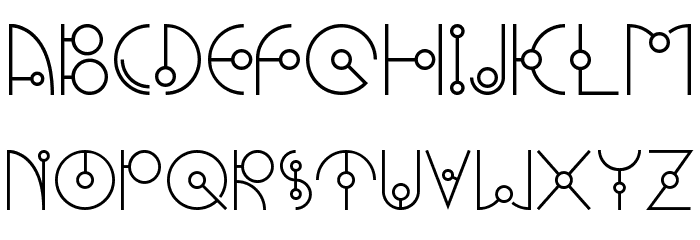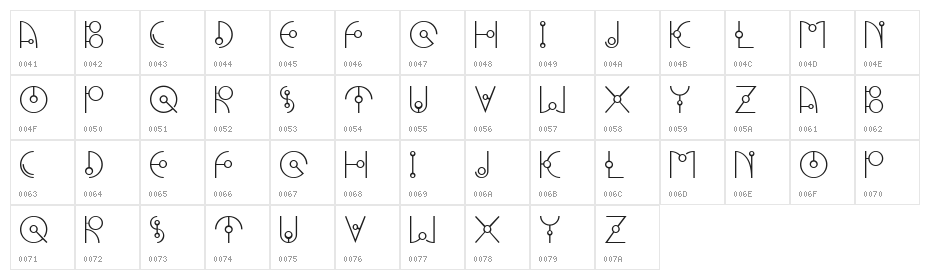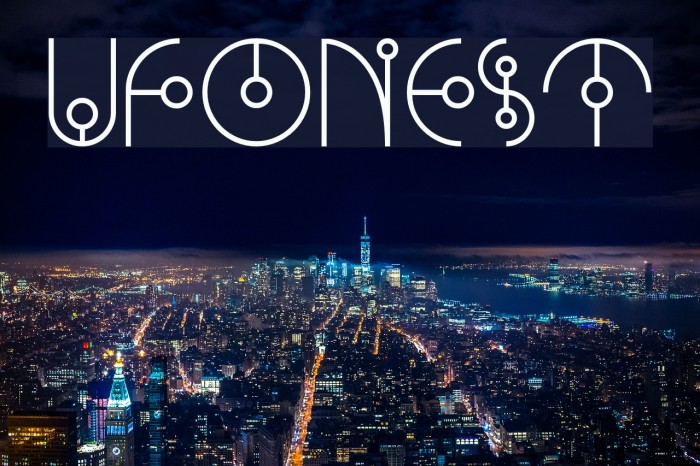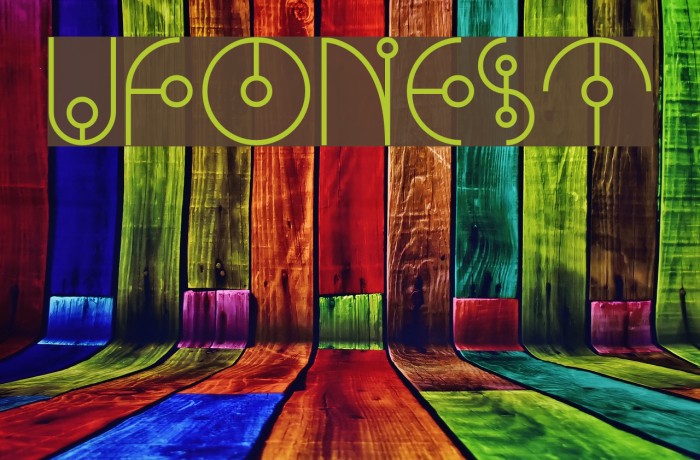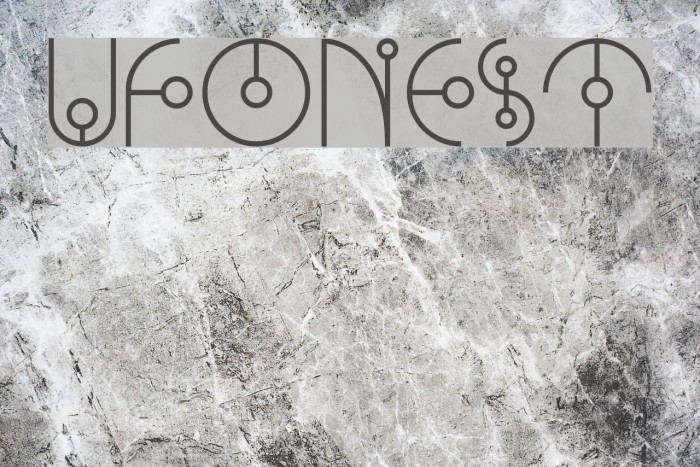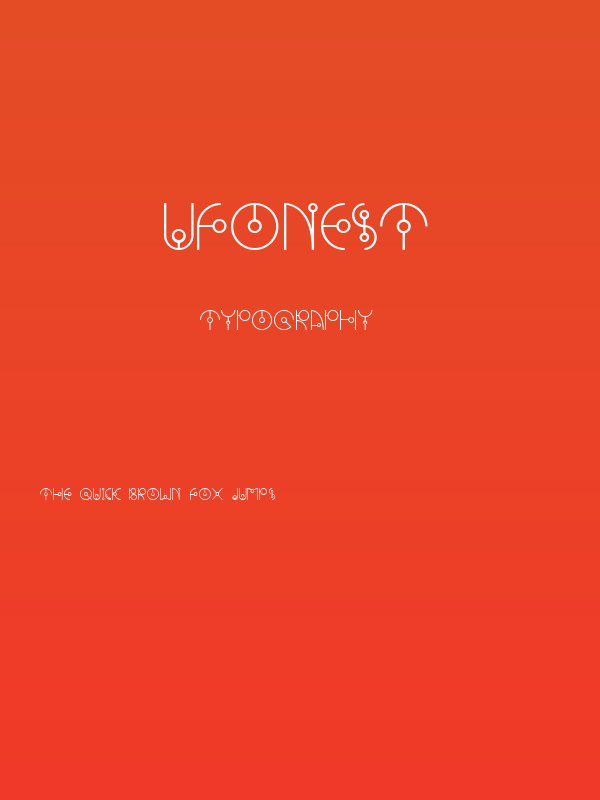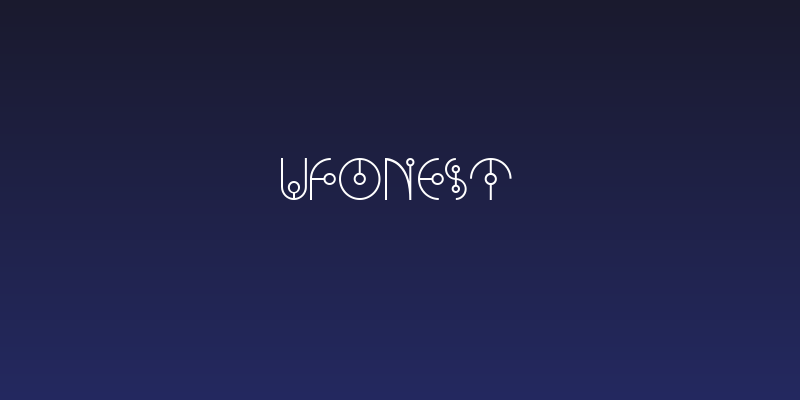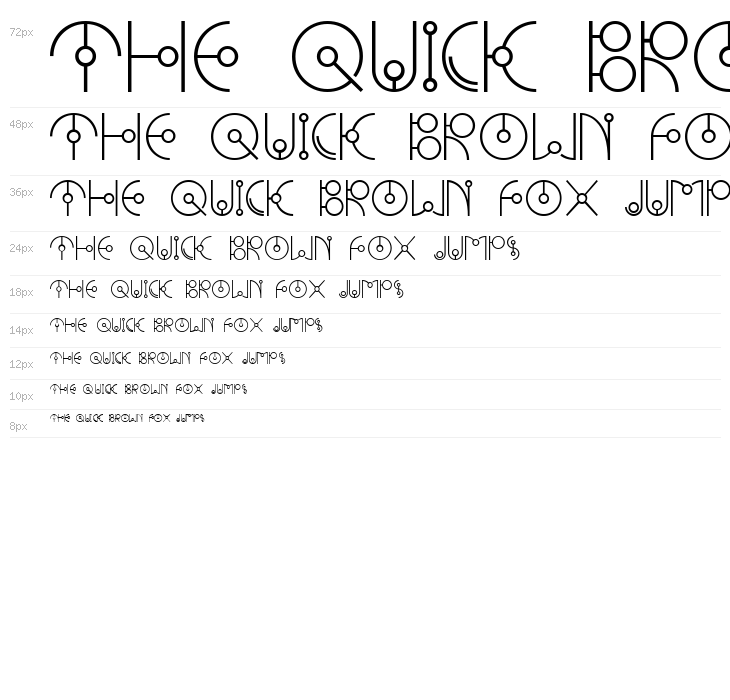
UFONEST Font
UFONEST Description
This font features a futuristic and geometric design, characterized by its circular and linear elements. Each letter is crafted with a unique combination of circles and straight lines, creating a sense of symmetry and balance. The font has a minimalist aesthetic, with clean lines and a modern feel. The uppercase letters are particularly distinctive, with some characters incorporating dots and intersecting lines that add a decorative touch. The overall appearance is sleek and innovative, making it suitable for projects that require a contemporary and avant-garde look.
Proposed ProjectsIdeal for sci-fi themed designs, technology branding, modern art posters, and innovative product packaging.